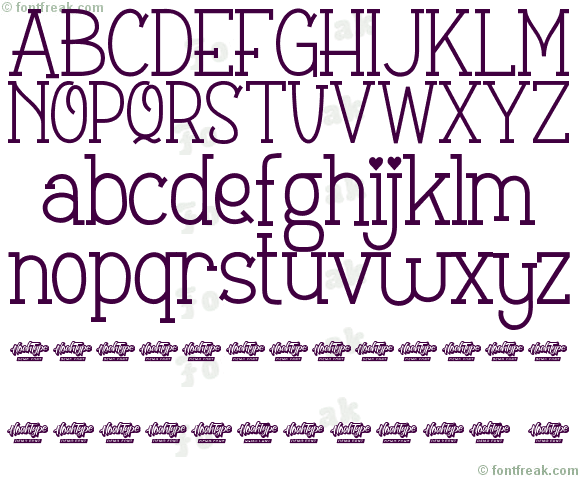
Creamy Lovely Demo
About Creamy Lovely Demo
The Creamy Lovely Demo font by Noah Type is a captivating display typeface that blends elegance with a touch of whimsy. This font is categorized as a decorative style, making it a perfect choice for designs that require a unique and charming visual appeal. With its playful curves and smooth lines, the Creamy Lovely Demo font showcases a delightful balance of stroke weight, combining both thick and thin elements for added contrast. The generous spacing between characters enhances readability, while the slightly rounded edges give it a friendly, inviting aesthetic.
This font excels in various creative applications, making it an essential addition to any designer's toolkit. It is particularly well-suited for wedding invitations, where its romantic flair can set the tone for a special day. Additionally, it works wonderfully for children’s book titles, adding a playful vibe that appeals to young readers. Restaurant menus can also benefit from the Creamy Lovely Demo font, as it can evoke a cozy, welcoming atmosphere. For those involved in social media content creation, this font provides an eye-catching option for promotional graphics and posts, ensuring that your message stands out.
What sets the Creamy Lovely Demo font apart is its ability to convey warmth and approachability while maintaining a polished look. With the Creamy Lovely Demo font free download readily available, it's an excellent resource for anyone seeking to elevate their design projects with a unique, captivating typeface.